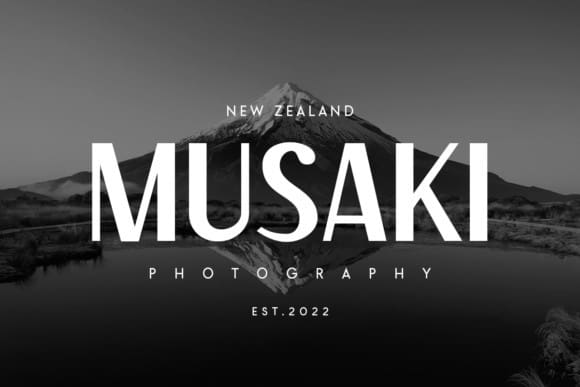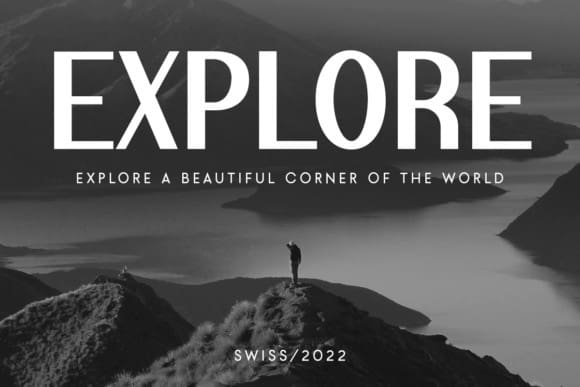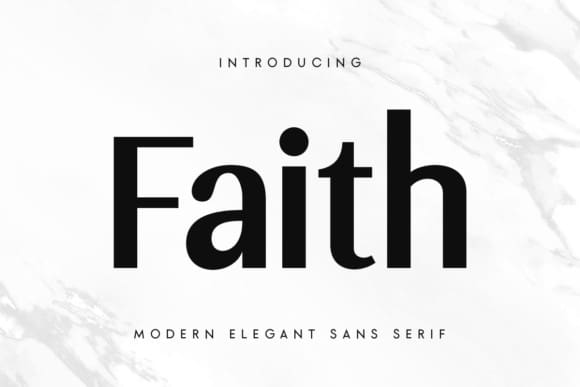
Faith Font
Faith Font is a modern and elegant sans-serif font. It would be a perfect choice to design posters, affiches, logos, t-shirt and magazine prints, eye-pleasing typographic designs and more.  Add it to your creative projects and enjoy the results!